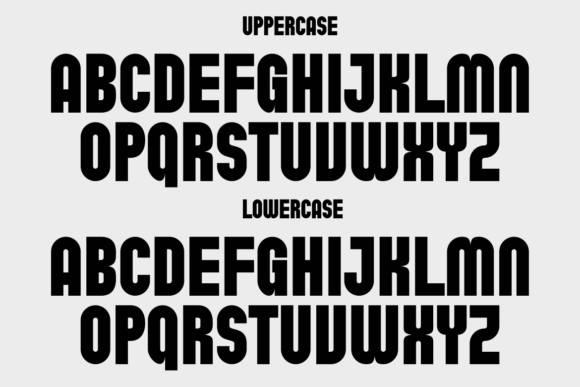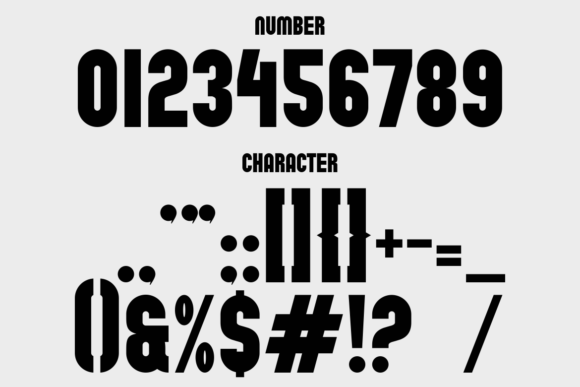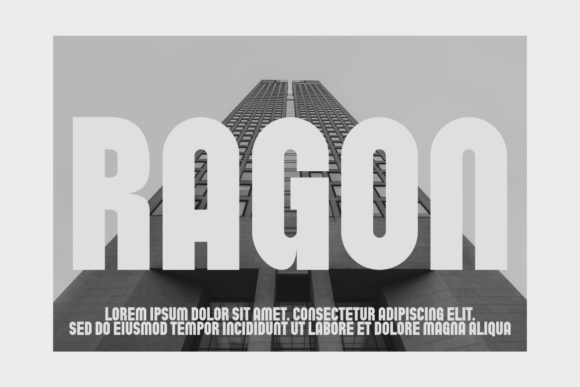
Introduction to Ragon Font
**RAGON** is a super thick typeface with more traditional letter shapes, making it perfect for creating (or recreating) the concise look of film poster production credits.
Key Features of Ragon Font
Why Choose Ragon Font?